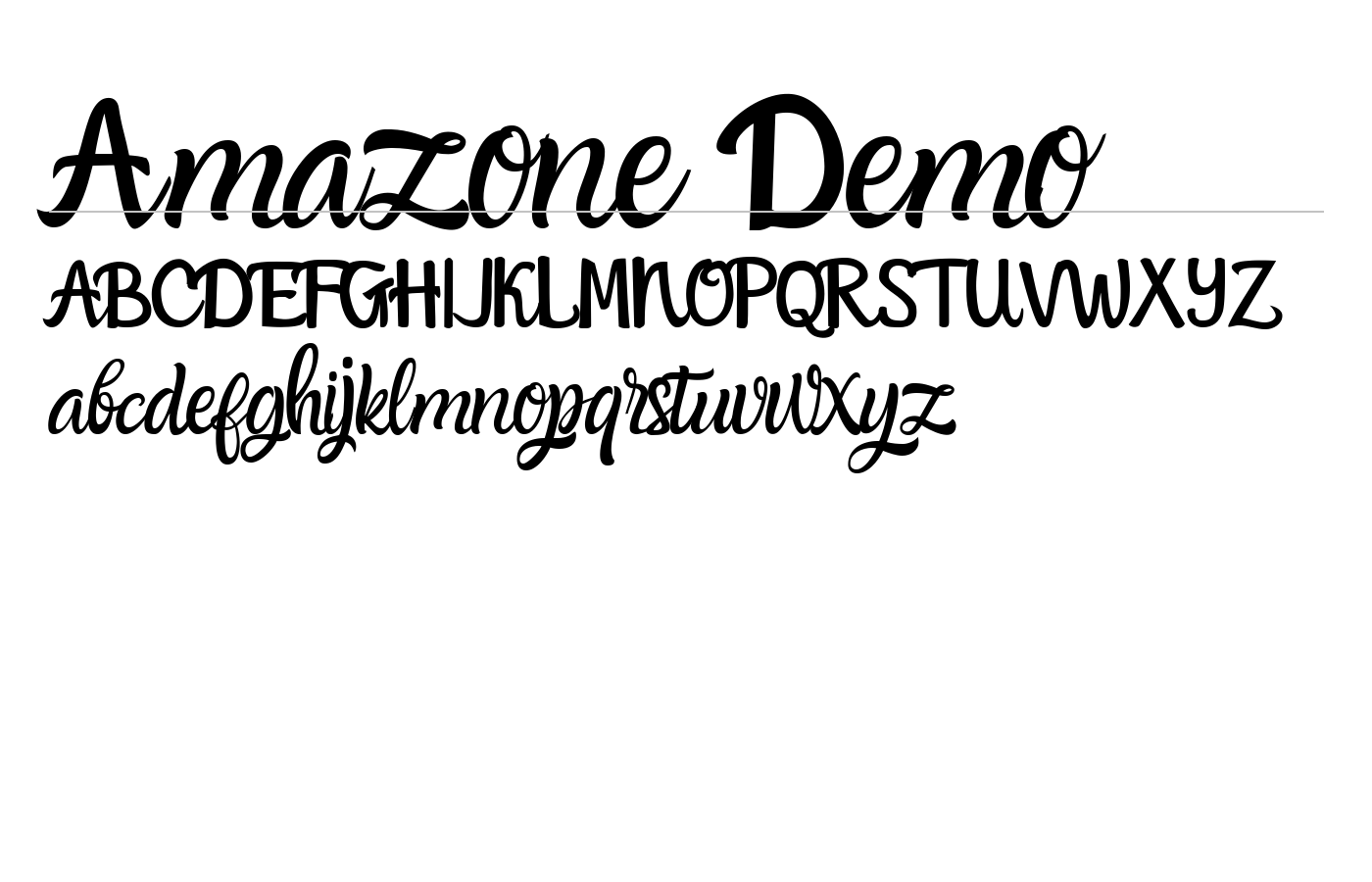
Amazone Demo is a lively and elegant script font with a playful, hand-drawn feel. Its flowing cursive forms, combined with unique swooping details and moderate contrast in stroke weight, give it a charming yet sophisticated appearance ideal for creative branding, logos, invitations, and stylish headlines. This font works well where a personal, artistic touch is needed, striking a balance between readability and decorative flair.
Amazone Demo Font